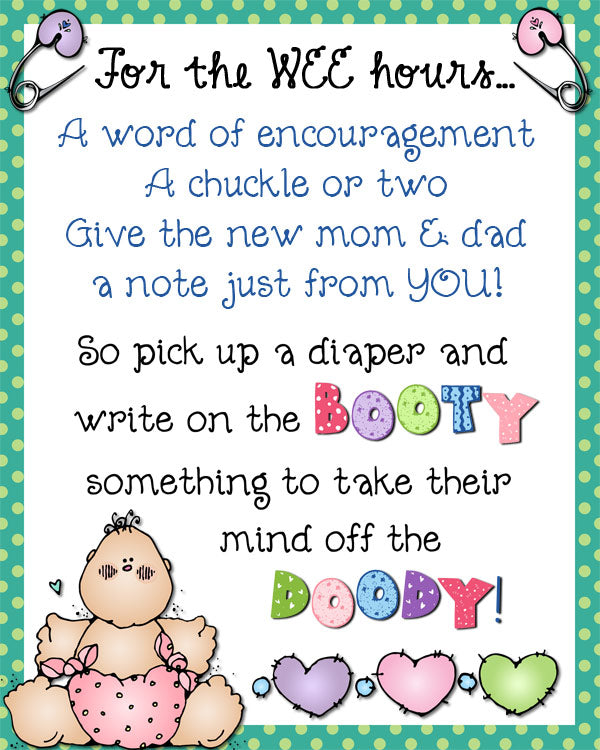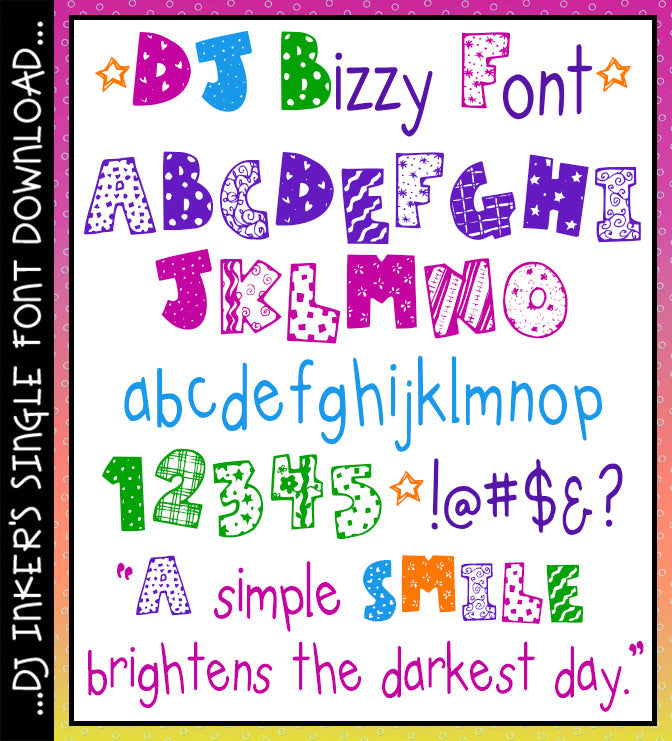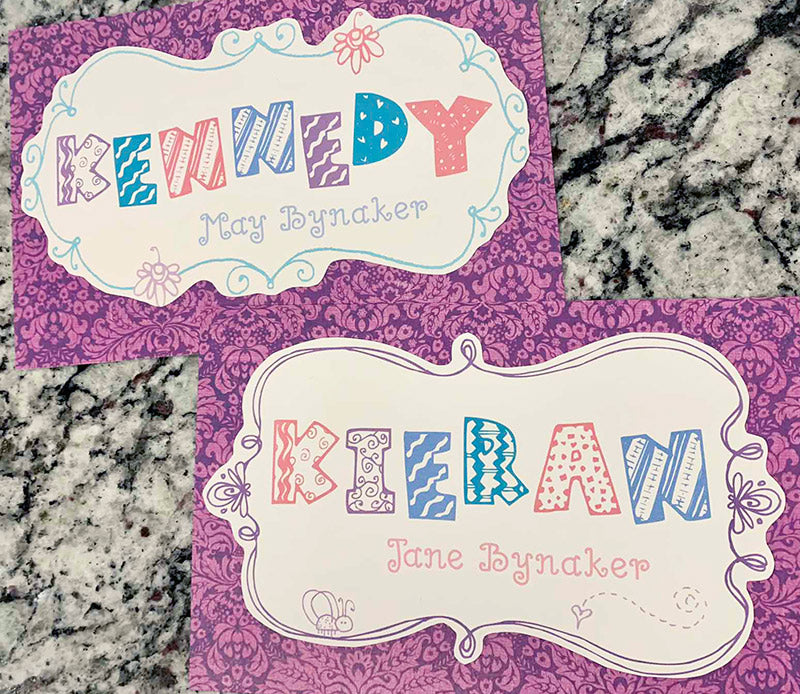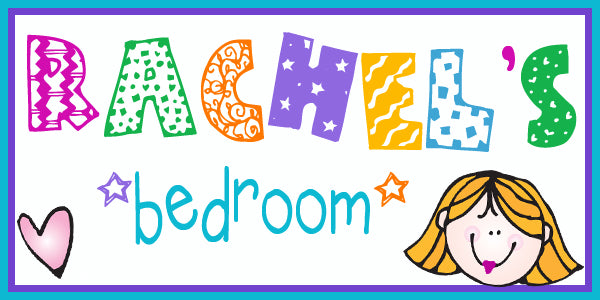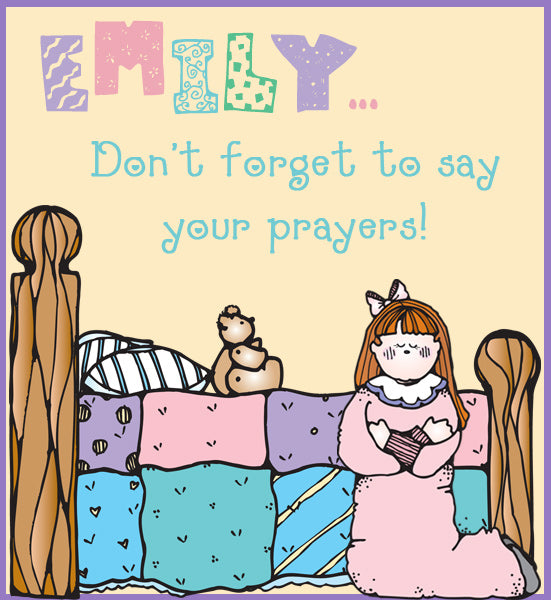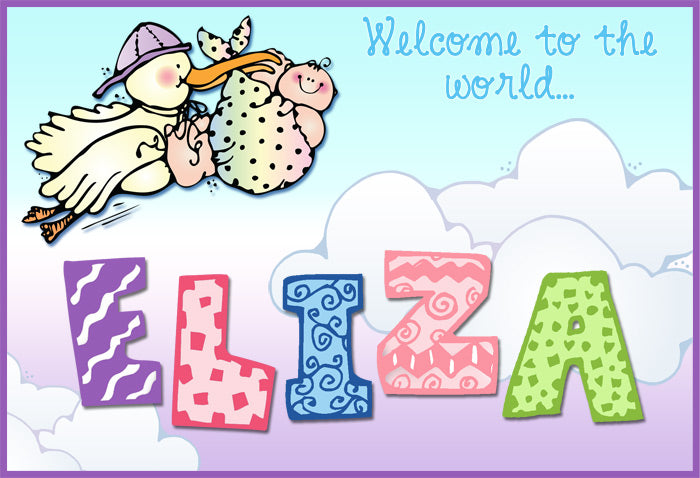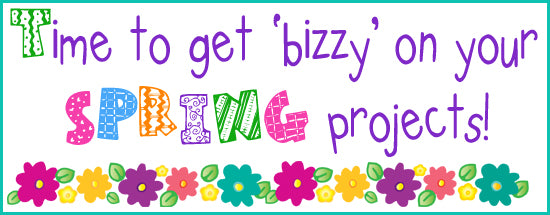
DJ Bizzy Font Download
Give a little spunk & a smile to your projects with our playful DJ Bizzy font! Fabulous
for headlines, nameplates, toppers, monogramming and more. Plus,
it looks awesome in any color, but these 'busy' little letters are full
of patterns & pizazz, so make sure the letters are BIG.